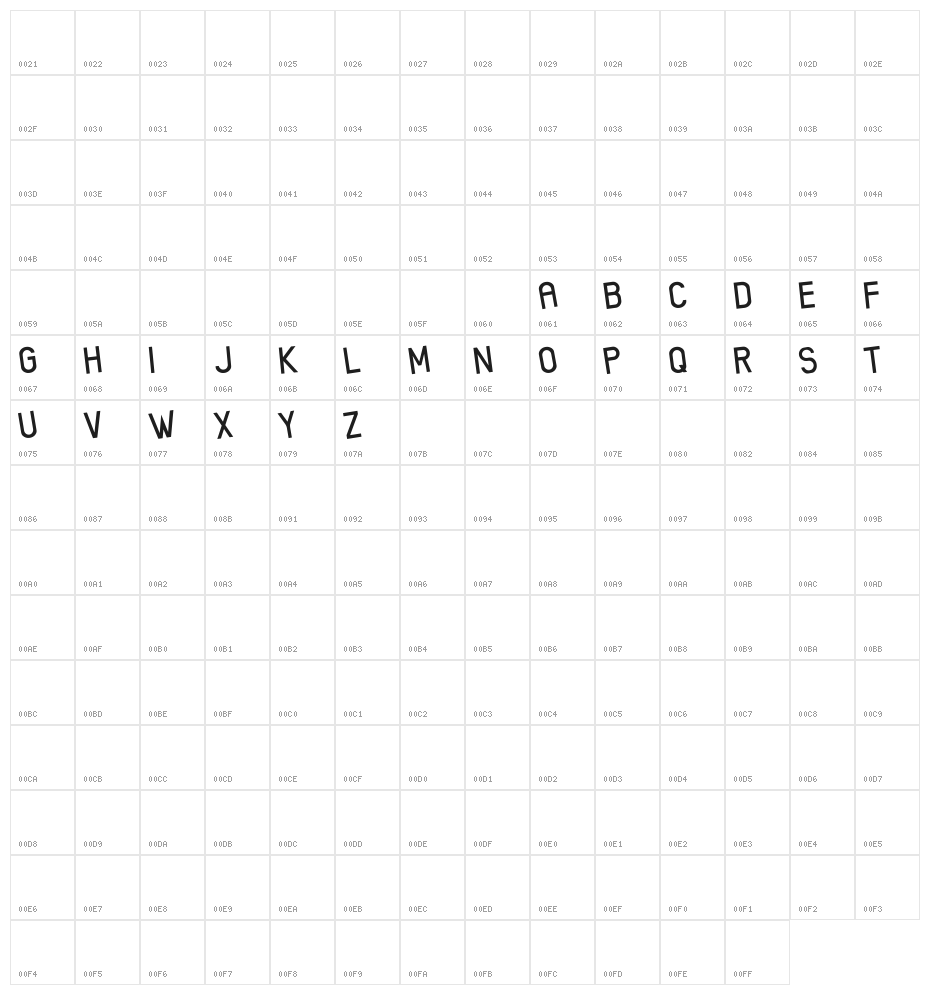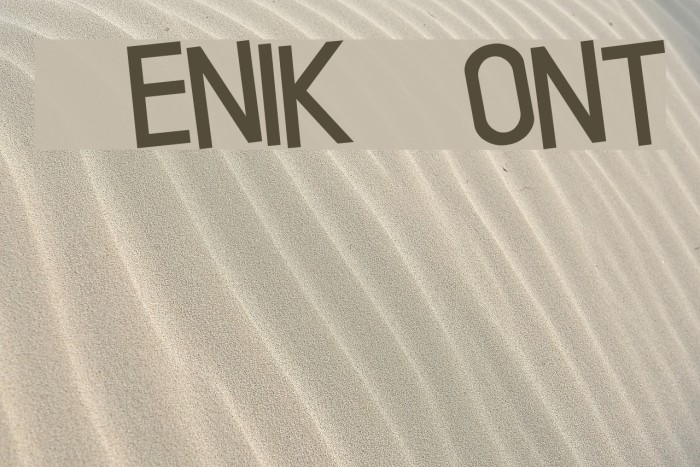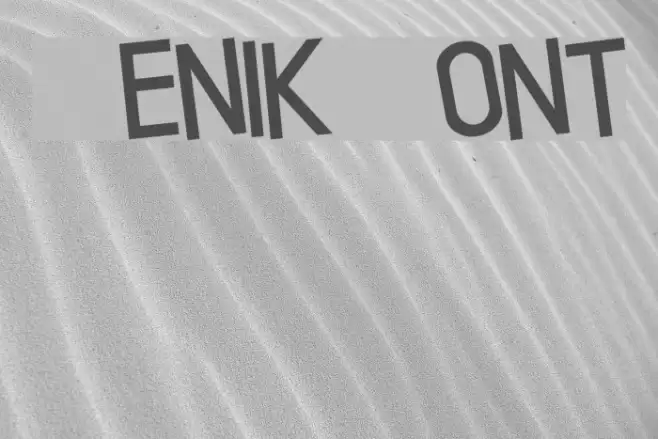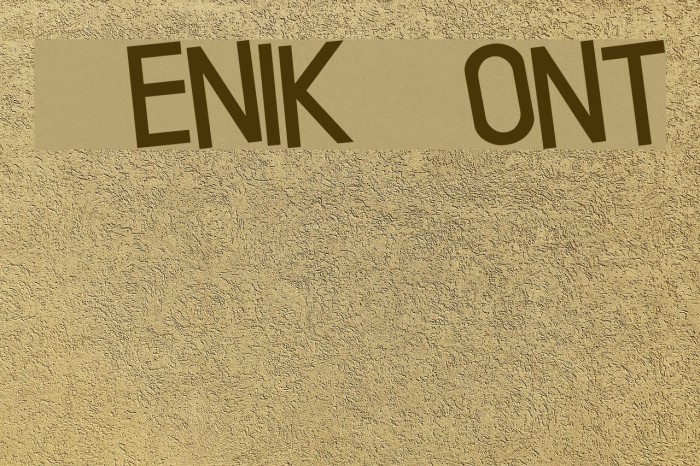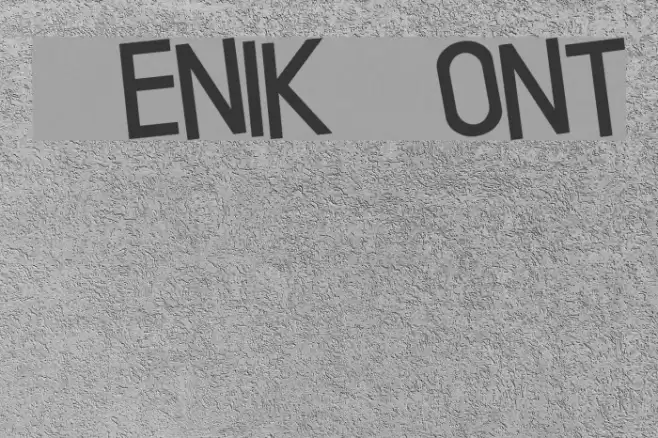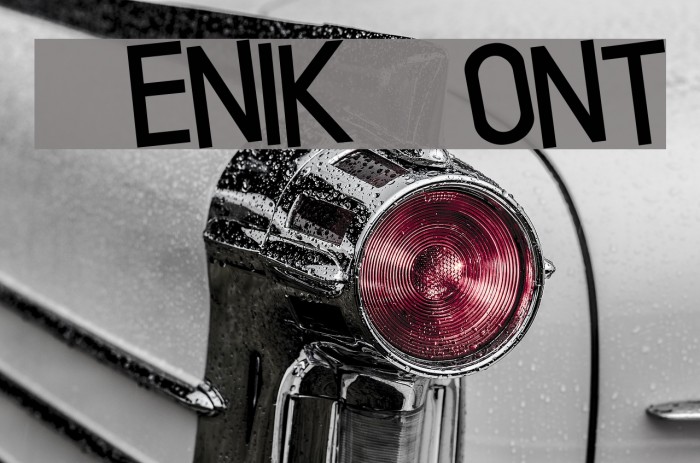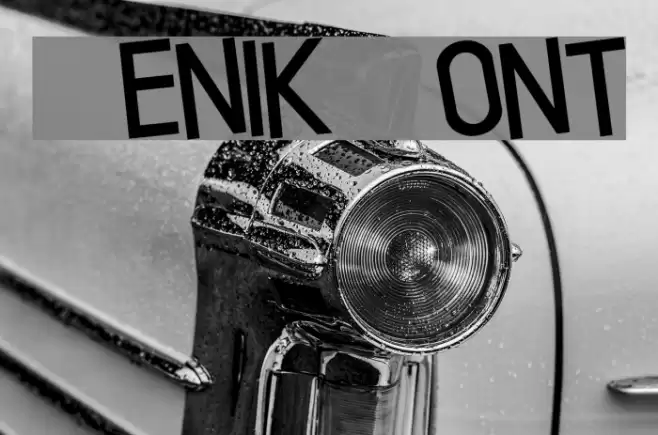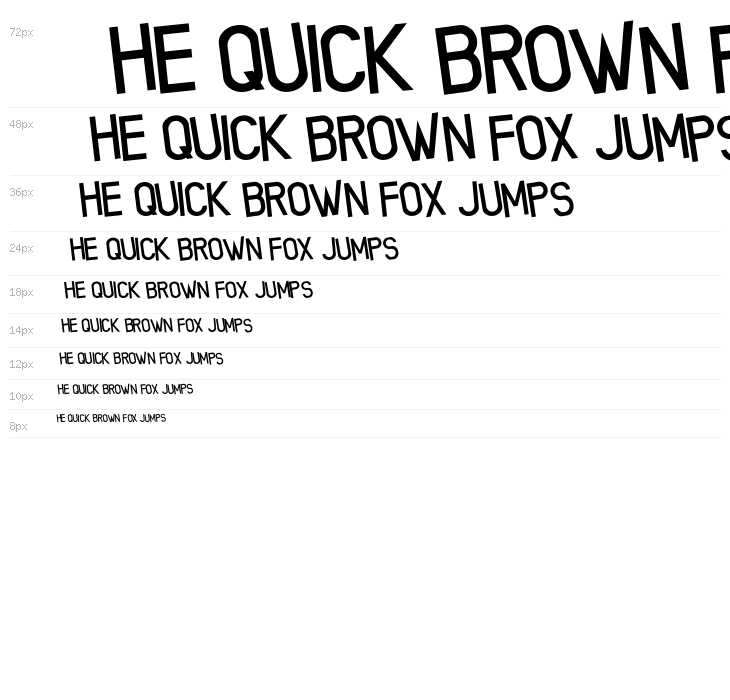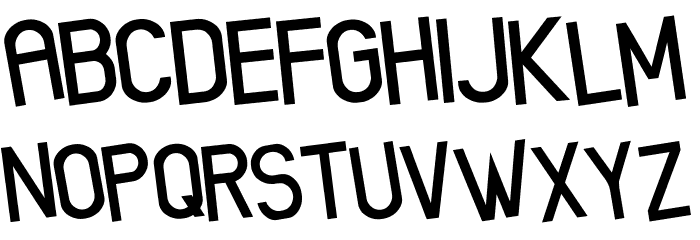
Xenik Font
Xenik Description
This font features a bold, geometric sans-serif style with a slight slant, giving it a dynamic and modern appearance. The characters are uniform in width, with clean lines and a consistent stroke weight. The uppercase letters are distinct and easily readable, making it suitable for attention-grabbing headlines. The font's angular design adds a contemporary edge, while maintaining clarity and legibility. Its structured form is ideal for projects that require a modern and professional look.
| Proposed Projects | Ideal for branding, advertising, headlines, and modern web design projects. |